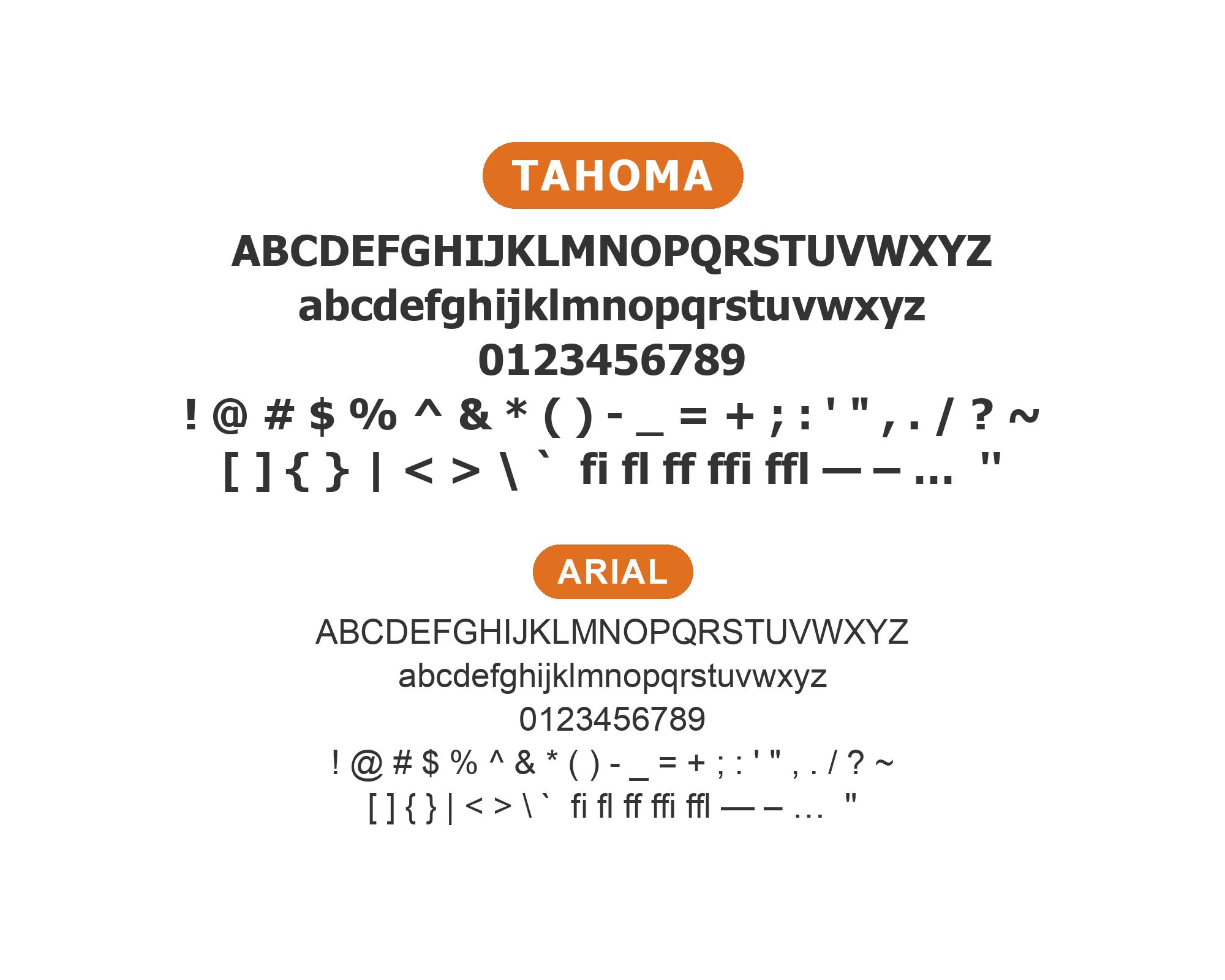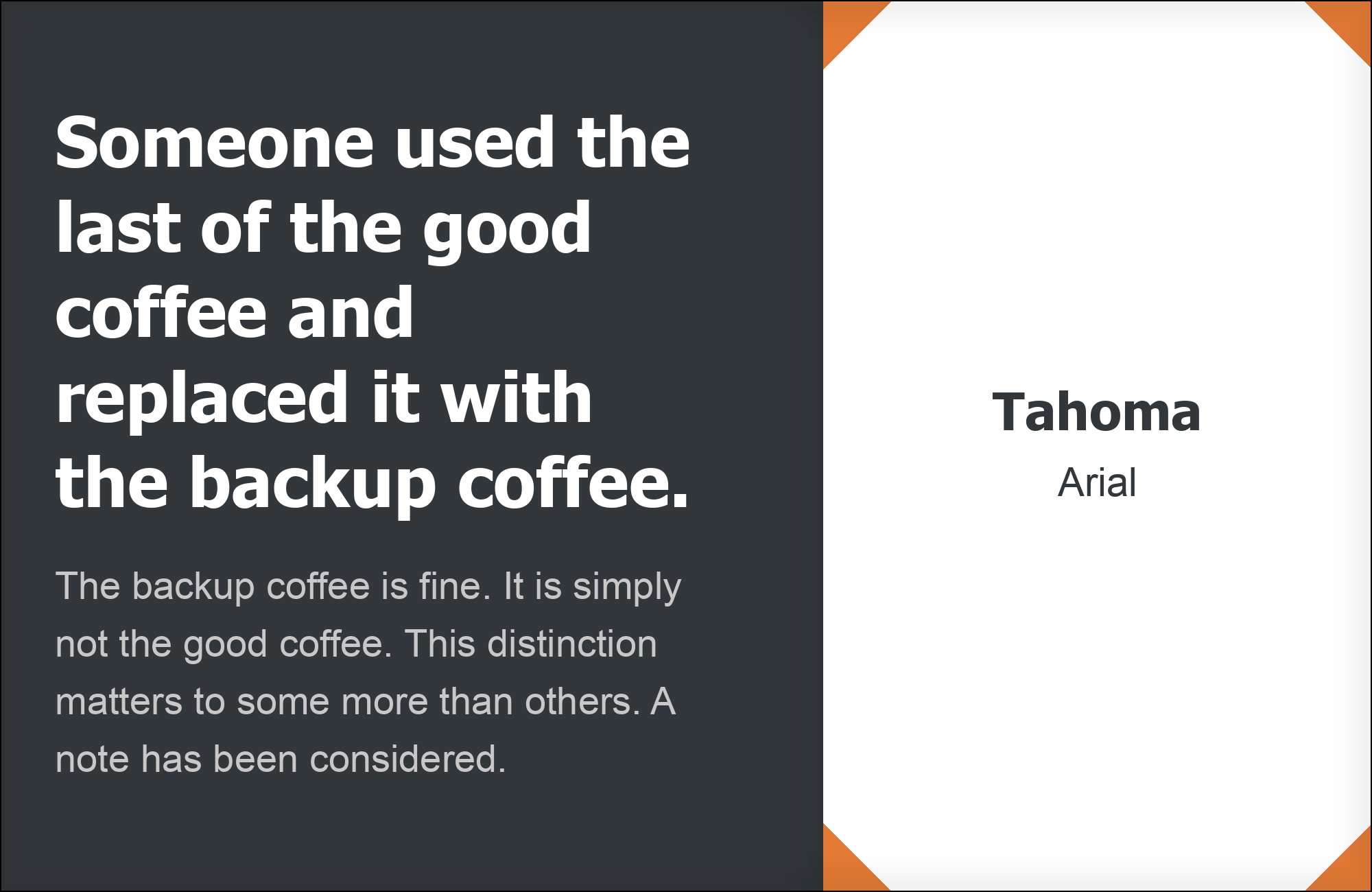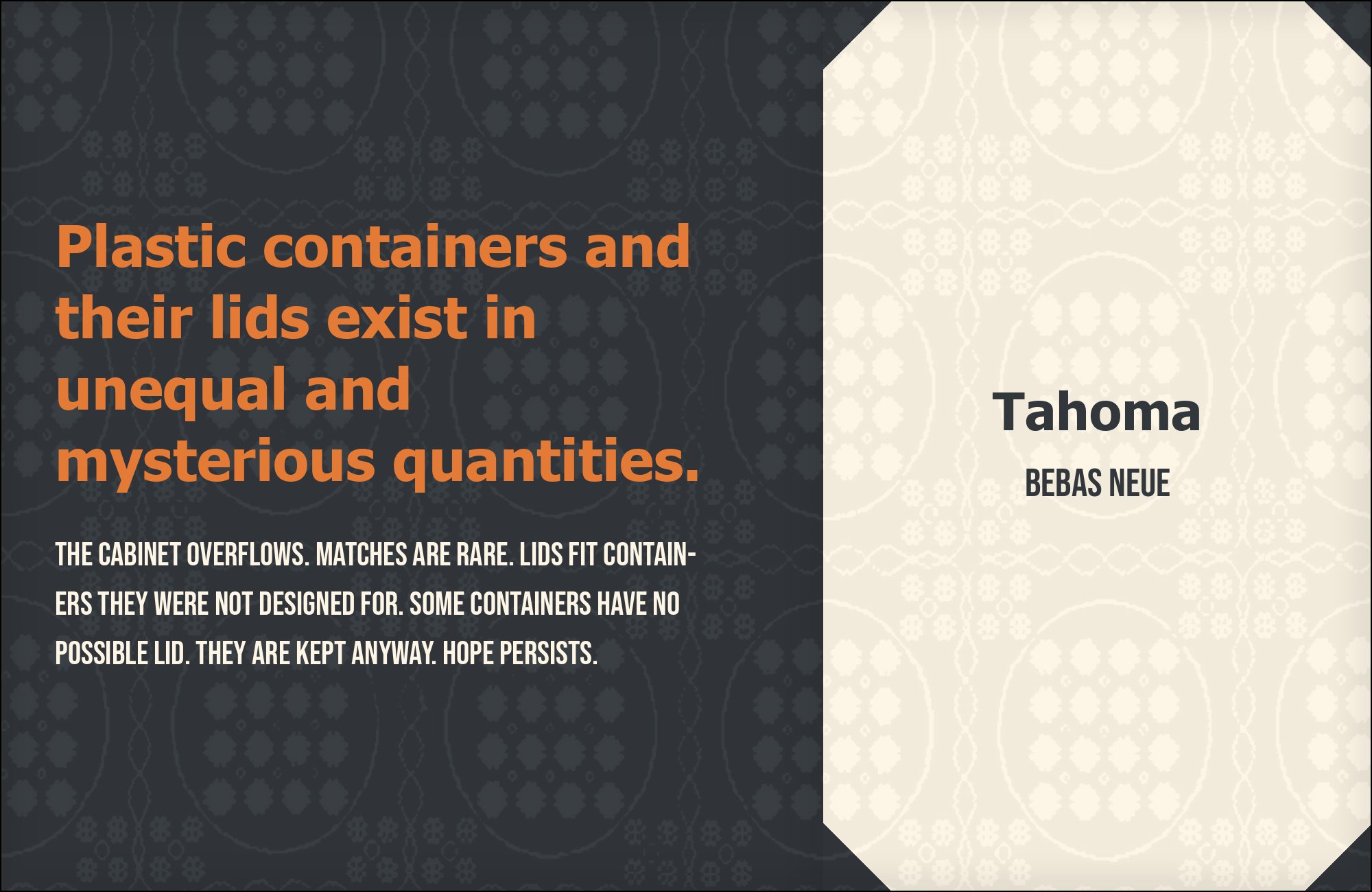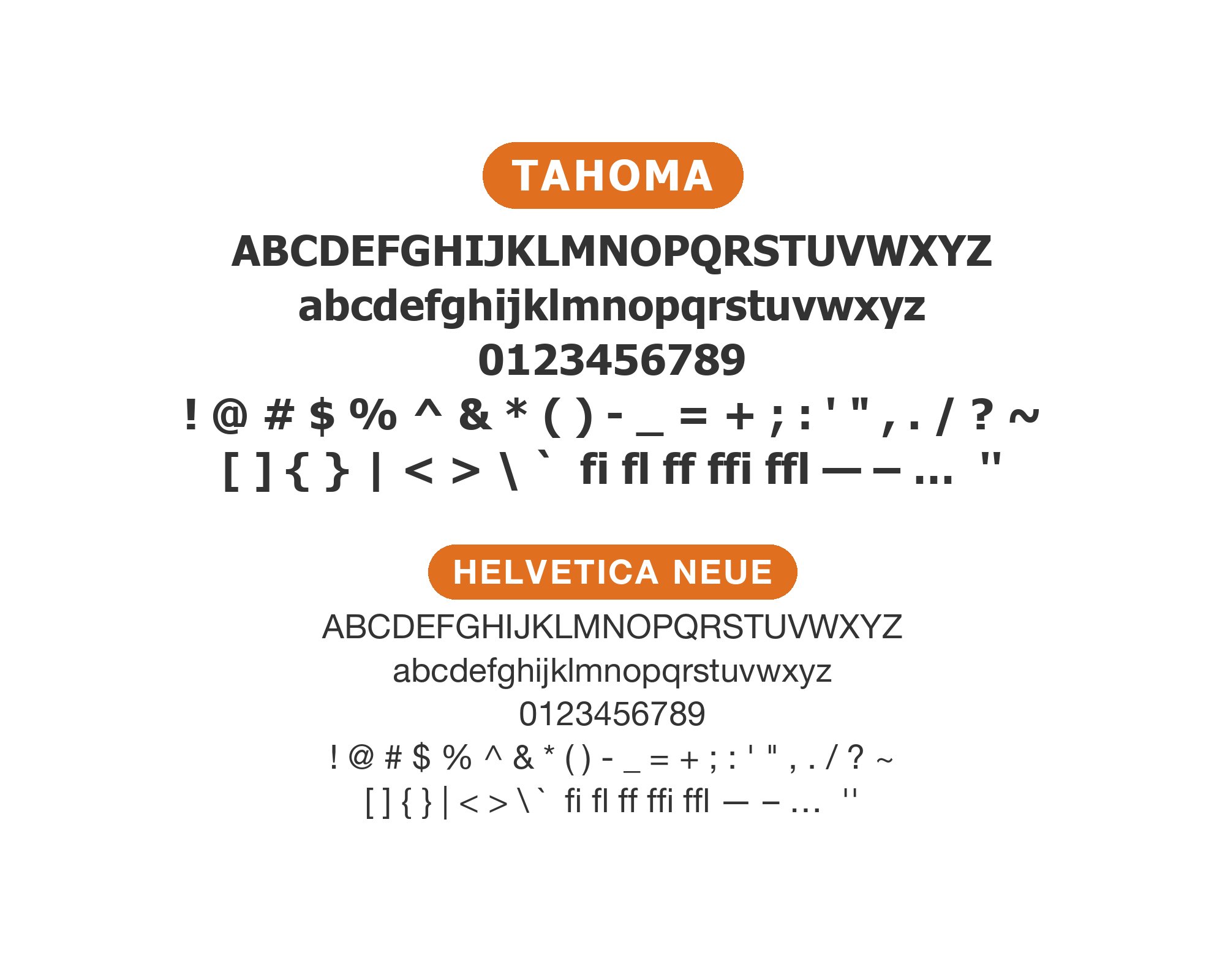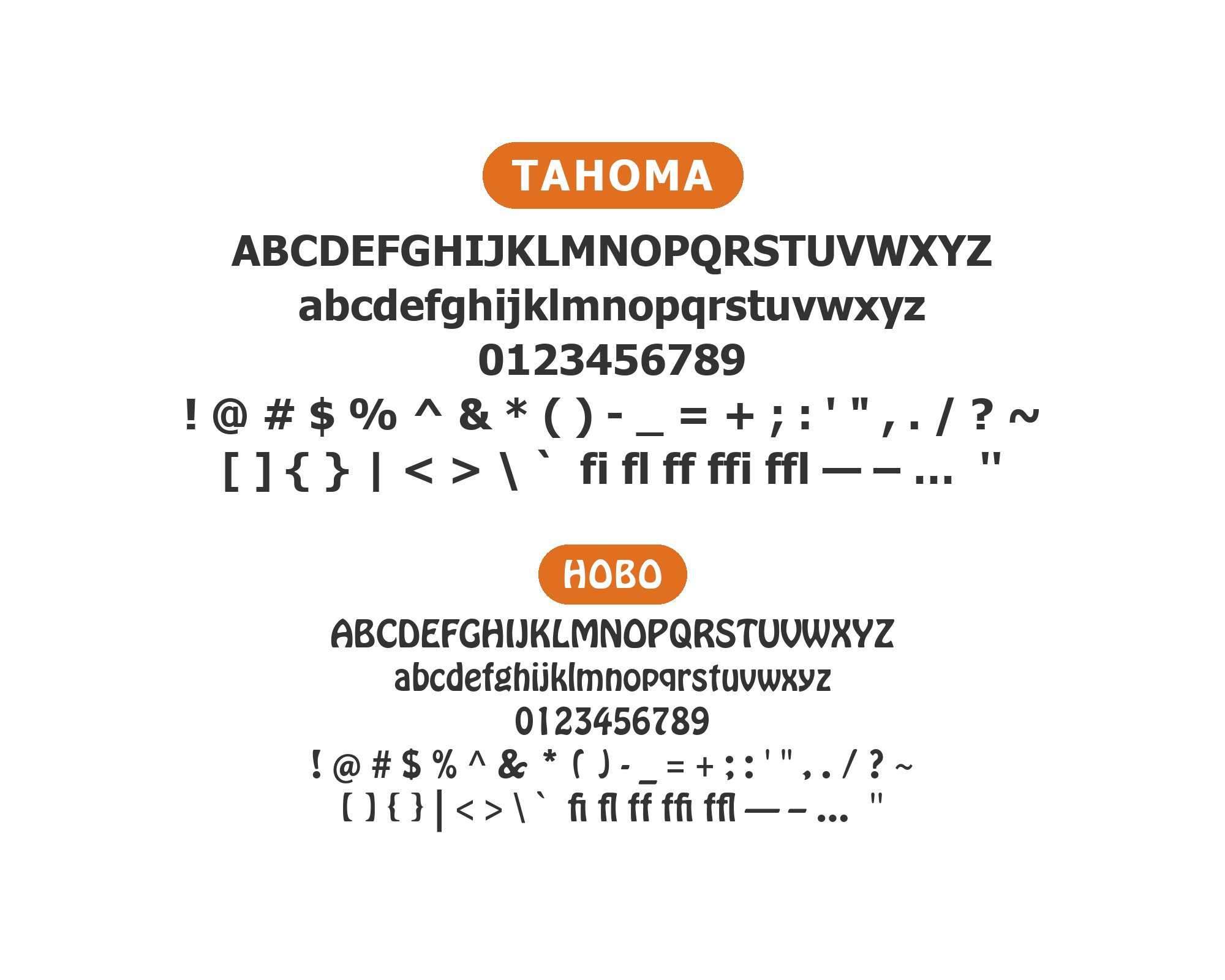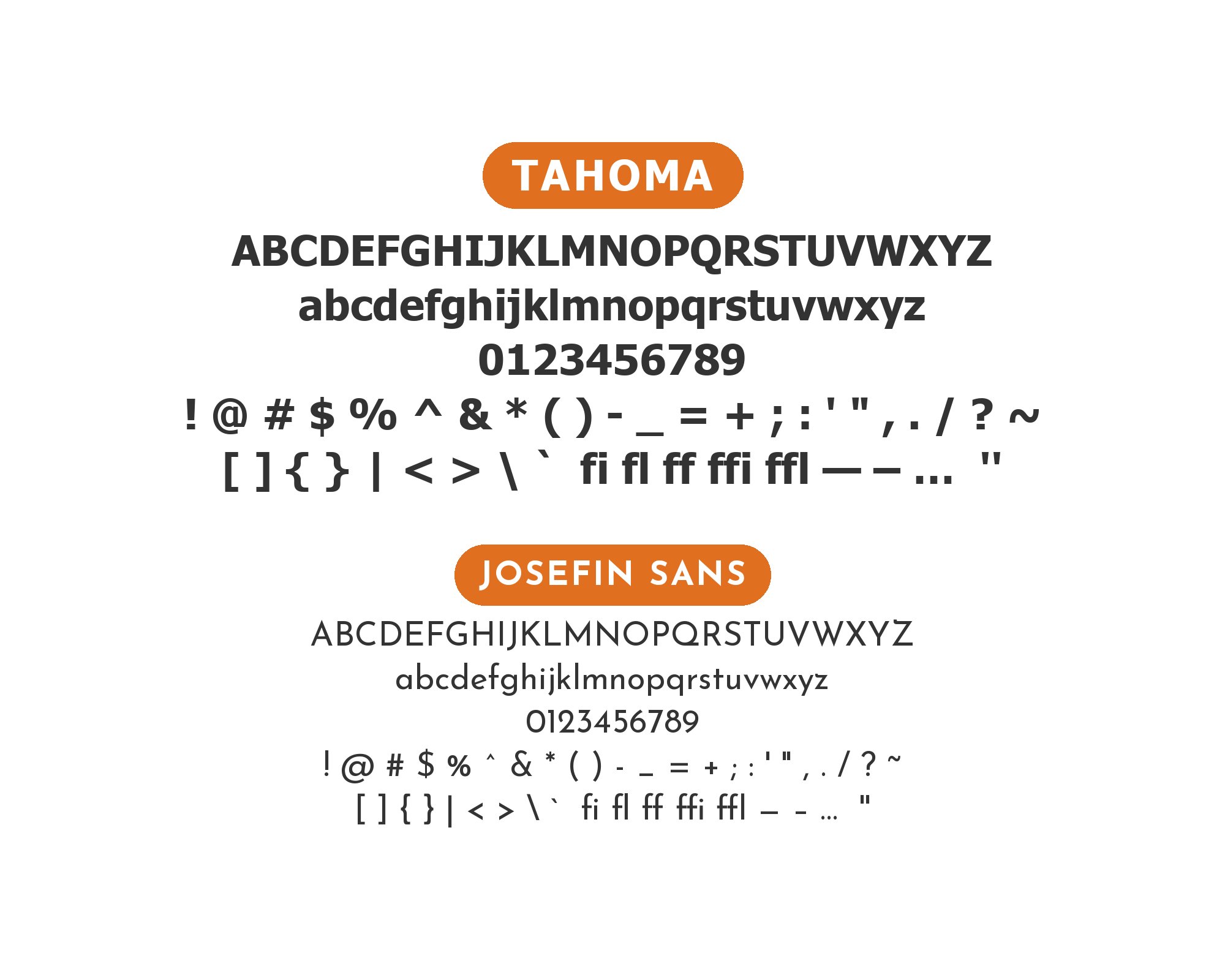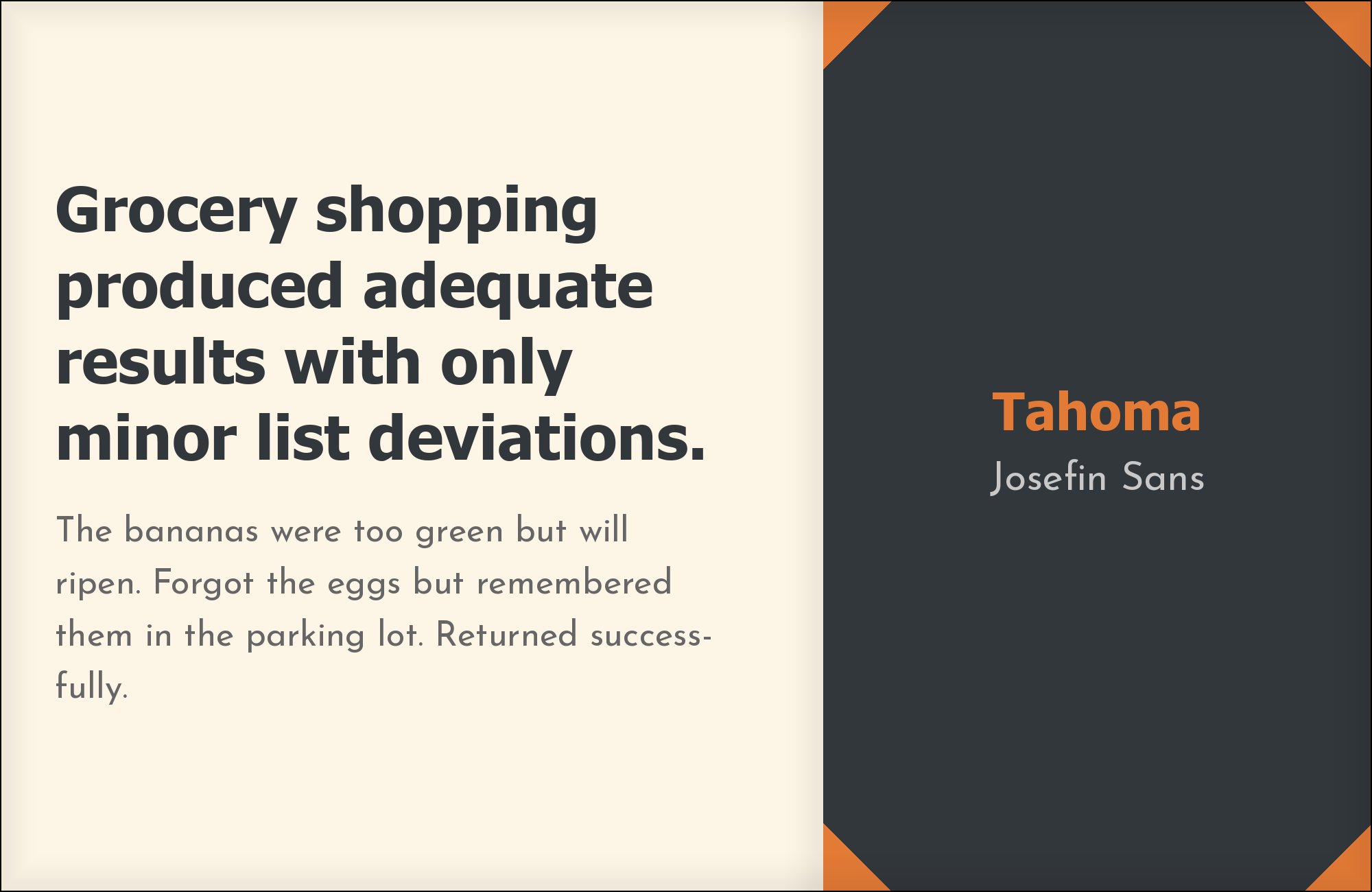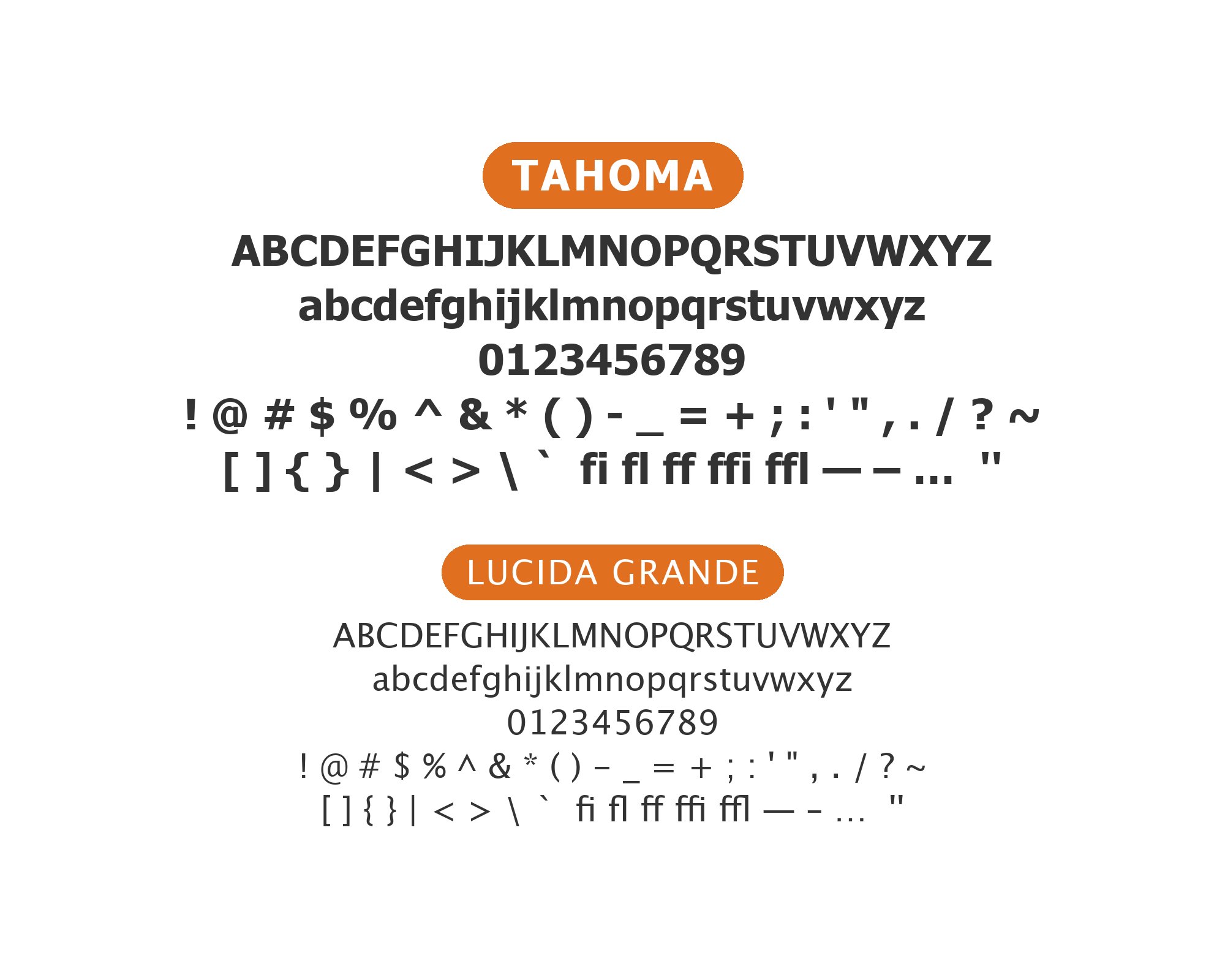
What Fonts Go With Tahoma?
Tahoma pairs great with Verdana, Georgia and Helvetica Neue. All 11 pairings are shown below in real rendered specimens, with the reason each one works.
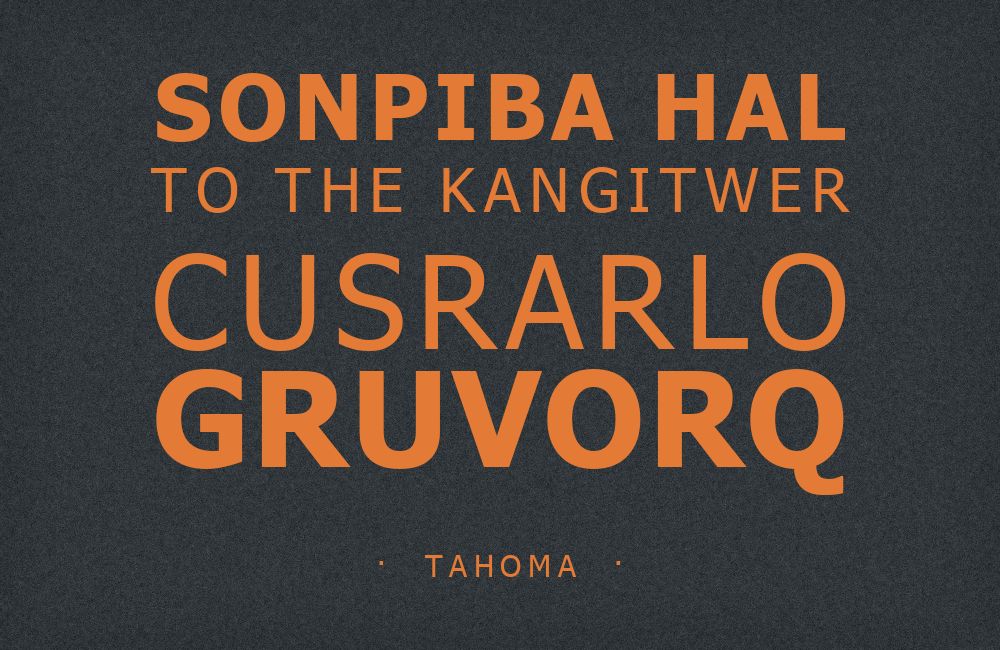
Tahoma type specimen
What fonts go with Tahoma? 11 pairings are shown below, each with a reason it works.
Tahoma is a working typeface, not a novelty. The combinations below are ones that show up in real work, along with a few expert picks. Here are 11 fonts that pair well with Tahoma.
1. Verdana
Tahoma and Verdana font pairing: Tahoma headline with Verdana body text
Microsoft’s own documentation states this pairing directly: Tahoma’s narrower, tighter-spaced letterforms fit headlines and labels in a small space, while Verdana’s wider, more generous forms carry body copy — the two were built as siblings for exactly this split and shipped together in Office 97.
Character specimen: Tahoma (heading) and Verdana (body) letters, numbers and symbols side by side
2. Georgia
Tahoma and Georgia font pairing: Tahoma headline with Georgia body text
A screen-tuned serif for reading text lets Tahoma work purely as the interface layer — labels, navigation, captions — without the two competing for the same job. Confirmed on two real sites.
Character specimen: Tahoma (heading) and Georgia (body) letters, numbers and symbols side by side
3. Helvetica Neue
Tahoma and Helvetica Neue font pairing: Tahoma headline with Helvetica Neue body text
A tighter, more neutral grotesque sits comfortably next to Tahoma’s rounder interface forms when a design needs two sans layers — one for UI chrome, one for marketing copy — jacarandadesignarchive.com runs both together.
Character specimen: Tahoma (heading) and Helvetica Neue (body) letters, numbers and symbols side by side
4. Josefin Sans
Tahoma and Josefin Sans font pairing: Josefin Sans headline with Tahoma body text
Josefin Sans’s thin geometric strokes and 1920s-inspired proportions give headlines more personality than Tahoma is built to provide. A Catch Themes support thread records one site owner’s settings: Josefin Sans for all the titles and Tahoma for the body content.
Character specimen: Josefin Sans (heading) and Tahoma (body) letters, numbers and symbols side by side
5. Lucida Grande
Tahoma and Lucida Grande font pairing: Tahoma headline with Lucida Grande body text
Both are humanist screen-legibility faces from the same design era, so pairing them keeps a page’s whole type system in one visual family — mydirtydesk.com uses both.
Character specimen: Tahoma (heading) and Lucida Grande (body) letters, numbers and symbols side by side
6. Zilla Slab
Tahoma and Zilla Slab font pairing: Tahoma headline with Zilla Slab body text
Zilla Slab’s sturdy square serifs and humanist proportions add warmth and weight contrast against Tahoma’s plain interface forms — a slab/sans headline-and-UI split suited to editorial or brand-forward layouts.
Character specimen: Tahoma (heading) and Zilla Slab (body) letters, numbers and symbols side by side
7. Arial
Tahoma and Arial font pairing: Tahoma headline with Arial body text
Two default system sans faces used together read as deliberately plain rather than accidental — mydirtydesk.com runs Tahoma alongside Arial, Georgia, and Lucida Grande in one type system.
Character specimen: Tahoma (heading) and Arial (body) letters, numbers and symbols side by side